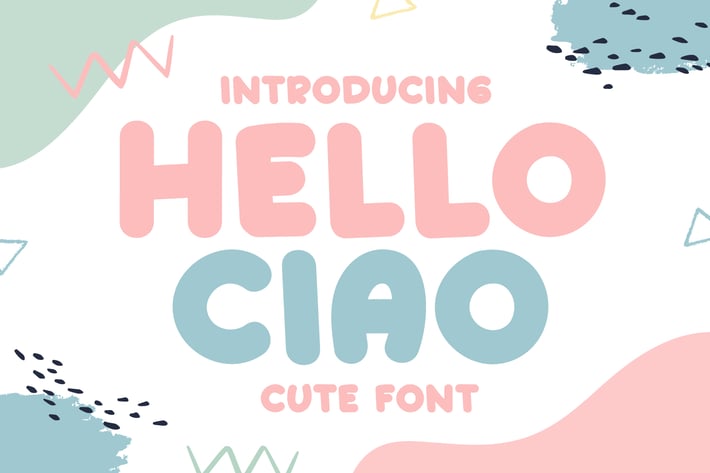
Hello Ciao - Cute Handwritten Font
Introducing Hello Ciao - Cute Handwritten Font
Hello Ciao is a cute, friendly, and sweet display font. This font is perfect for children-themed designs, especially when combined with bright colors.